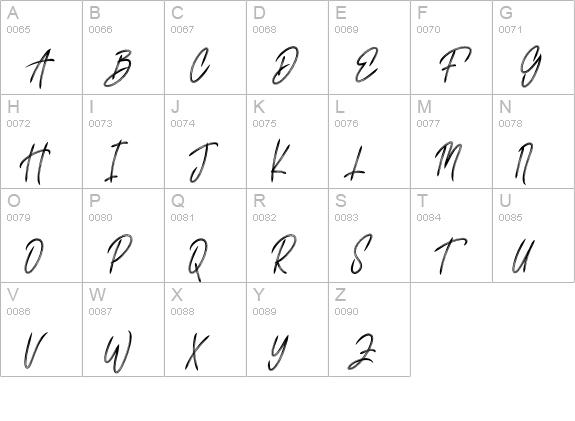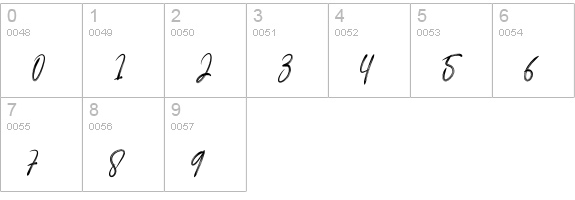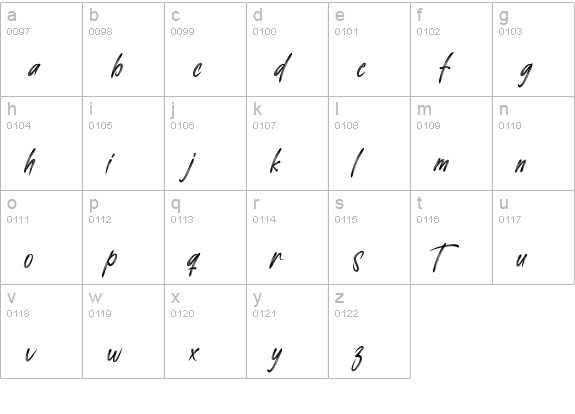
The Romantic Font Details
The Romantic is a free for personal use font in the Script > Handwritten category, designed by scratchones. It has been downloaded 62 times and is available for Windows, Mac and Linux.
The Romantic font exudes elegance and sophistication with its delicate curves and graceful flourishes, making it the perfect choice for adding a touch of romance to any design project. This enchanting font captures the essence of love and passion, making it ideal for wedding invitations, love letters, or any other project where a touch of romance is desired.